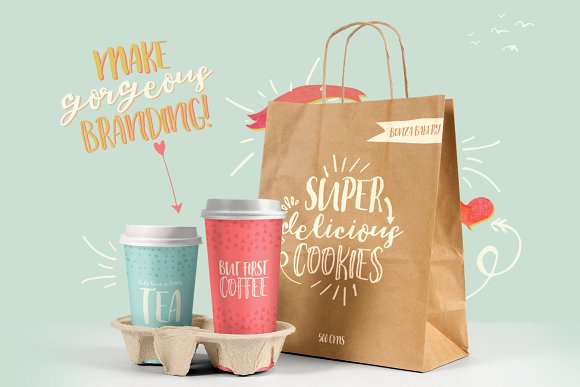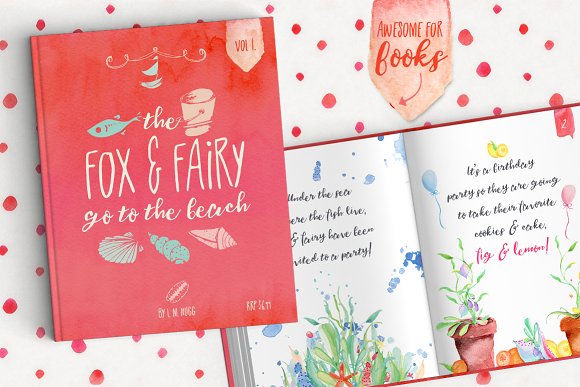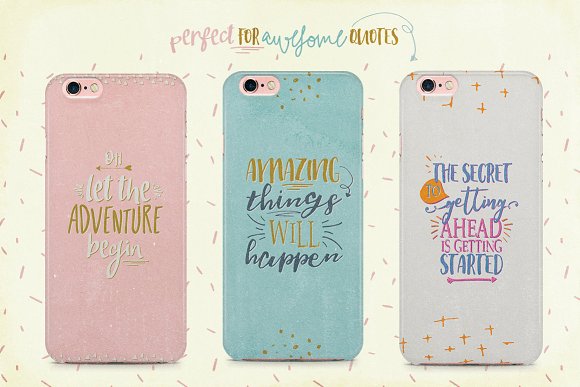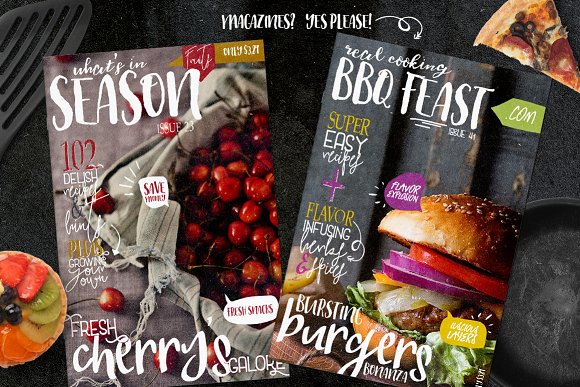
Aberfoyle Park Font: A Beautiful Handcrafted Typeface by Creativeqube
Are you a designer or crafter looking for a unique and elegant font to elevate your creative projects? Look no further than Aberfoyle Park Font, a stunning handcrafted typeface created by Creativeqube. In this article, we’ll dive into the world of Aberfoyle Park Font, exploring its features, benefits, and uses, as well as provide tips on how to make the most of this beautiful font.
What is Aberfoyle Park Font?
Aberfoyle Park Font is a meticulously crafted font designed by Creativeqube, a renowned creator of digital assets. This handcrafted font is inspired by the natural beauty of Aberfoyle Park, a scenic spot in South Australia. The font’s creator aimed to capture the essence of the park’s serene atmosphere, translating it into a typographic masterpiece.
Features of Aberfoyle Park Font
Aberfoyle Park Font boasts an array of features that make it an excellent choice for designers and crafters. Some of its notable features include:
- Handcrafted with love: Each letter has been carefully crafted to ensure a unique and personal touch.
- Elegant and refined: The font’s classic design makes it perfect for projects requiring a sophisticated look.
- Highly legible: The font’s clear and readable design ensures that your text is easily understandable.
- Multilingual support: Aberfoyle Park Font supports multiple languages, making it an excellent choice for global projects.
Benefits of Using Aberfoyle Park Font
So, why should you choose Aberfoyle Park Font for your creative projects? Here are some benefits of using this beautiful font:
- Adds elegance to your designs: Aberfoyle Park Font’s refined design instantly elevates your projects, adding a touch of sophistication.
- Versatile: The font’s flexibility makes it suitable for a wide range of applications, from branding and advertising to packaging and more.
- Unique and distinctive: With Aberfoyle Park Font, you can create designs that stand out from the crowd, thanks to its one-of-a-kind design.
Uses of Aberfoyle Park Font
Aberfoyle Park Font is an incredibly versatile typeface, suitable for various creative projects. Here are some popular uses for this beautiful font:
- Branding and logos: Create stunning logos and brand identities with Aberfoyle Park Font’s elegant design.
- Advertising and marketing: Use the font to create eye-catching ads, brochures, and marketing materials.
- Packaging design: Add a touch of sophistication to your product packaging with Aberfoyle Park Font.
- Stationery and paper goods: Create beautiful stationery, greeting cards, and paper crafts with this lovely font.
Tips for Using Aberfoyle Park Font
To get the most out of Aberfoyle Park Font, here are some valuable tips:
- Experiment with font sizes: Find the perfect balance between font size and line height to create visually appealing text.
- Pair with complementary fonts: Combine Aberfoyle Park Font with other fonts to create striking contrast and visual interest.
- Use it sparingly: Don’t overuse the font; instead, use it strategically to create emphasis and add elegance to your designs.
Aberfoyle Park Font is a beautiful handcrafted typeface that can elevate your creative projects to new heights. With its elegant design, versatility, and unique features, this font is perfect for designers and crafters looking to add a touch of sophistication to their work. By following the tips outlined in this article, you can make the most of Aberfoyle Park Font and create stunning designs that leave a lasting impression.